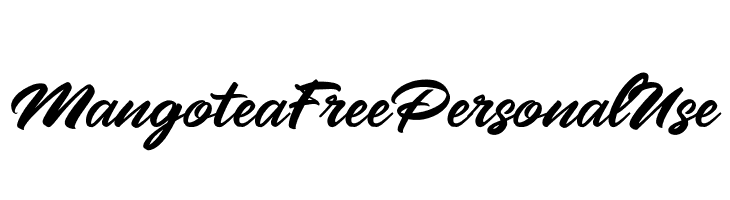
A modern, elegant script font with flowing, cursive characters and high contrast.
A dynamic italic font with smooth curves and elegant slant.
A festive collection of winter-themed symbols and icons in a playful, decorative style.
A bold, gradient-effect font with a futuristic, digital style.
A dynamic, cursive script font with a fluid and elegant style.
A playful, bold handwritten font with rounded, consistent strokes.
A delicate, cursive script font with a handwritten style.
A classic serif font with a modern twist, featuring elegant curves and sharp serifs.
A casual, handwritten font with a playful and informal style.
An elegant and flowing script font with ornate, connected letterforms.